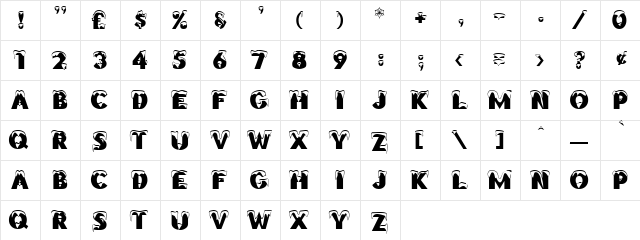
Vanilla Regular
Design Context for Vanilla Typeface
Vanilla is a composed and adaptable typeface that performs quietly and consistently across a wide range of design contexts.